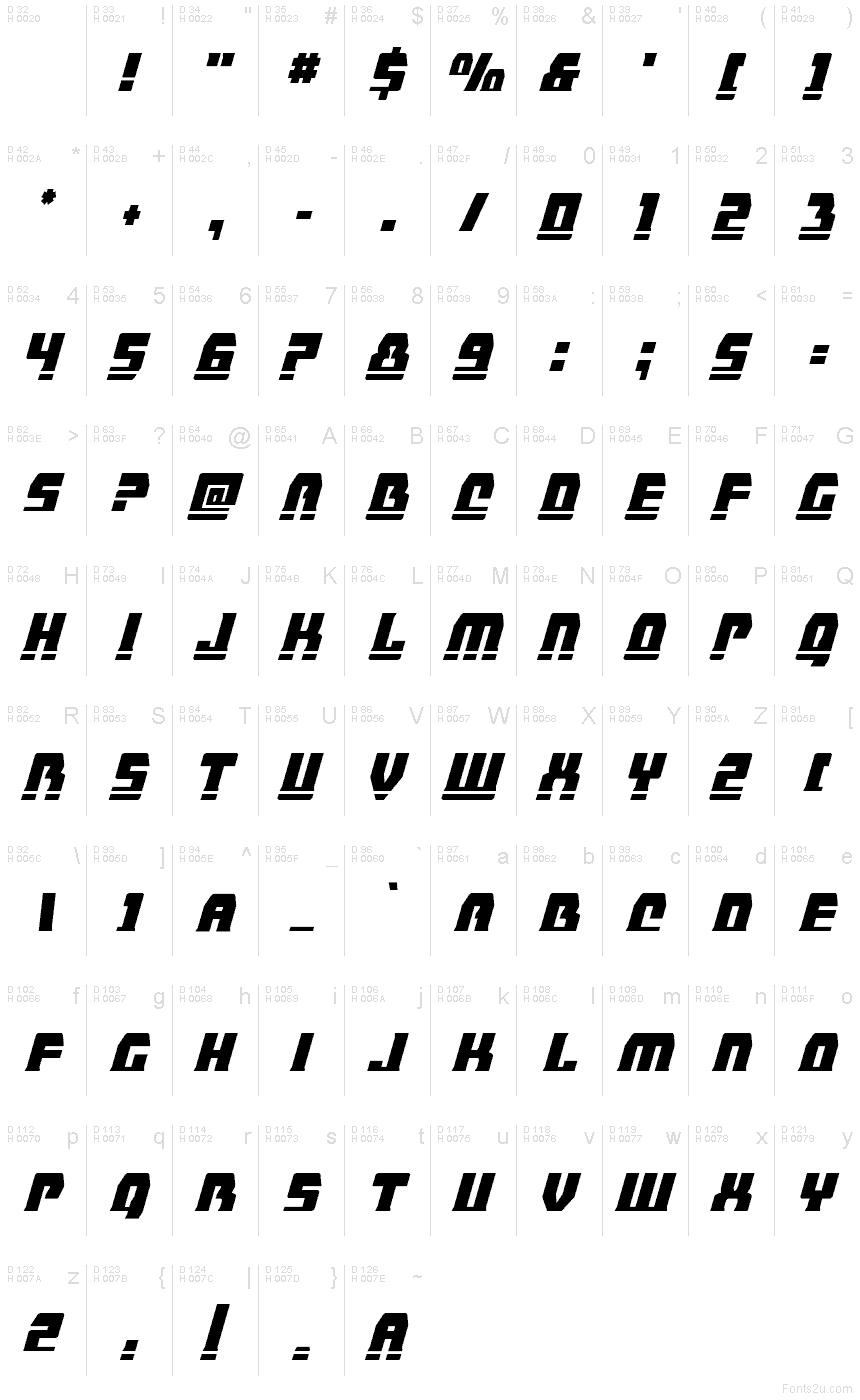
Librator Bar Super-Italic
Librator Bar Super-Italic font by Iconian Fonts is a bold display typeface that represents modernism. Its sleek, angular style visually communicates futuristic elements that stand out. This free techno display font will make its strong presence apparent in any design.